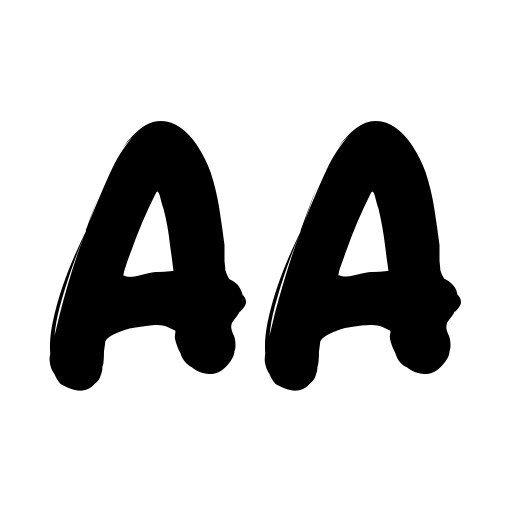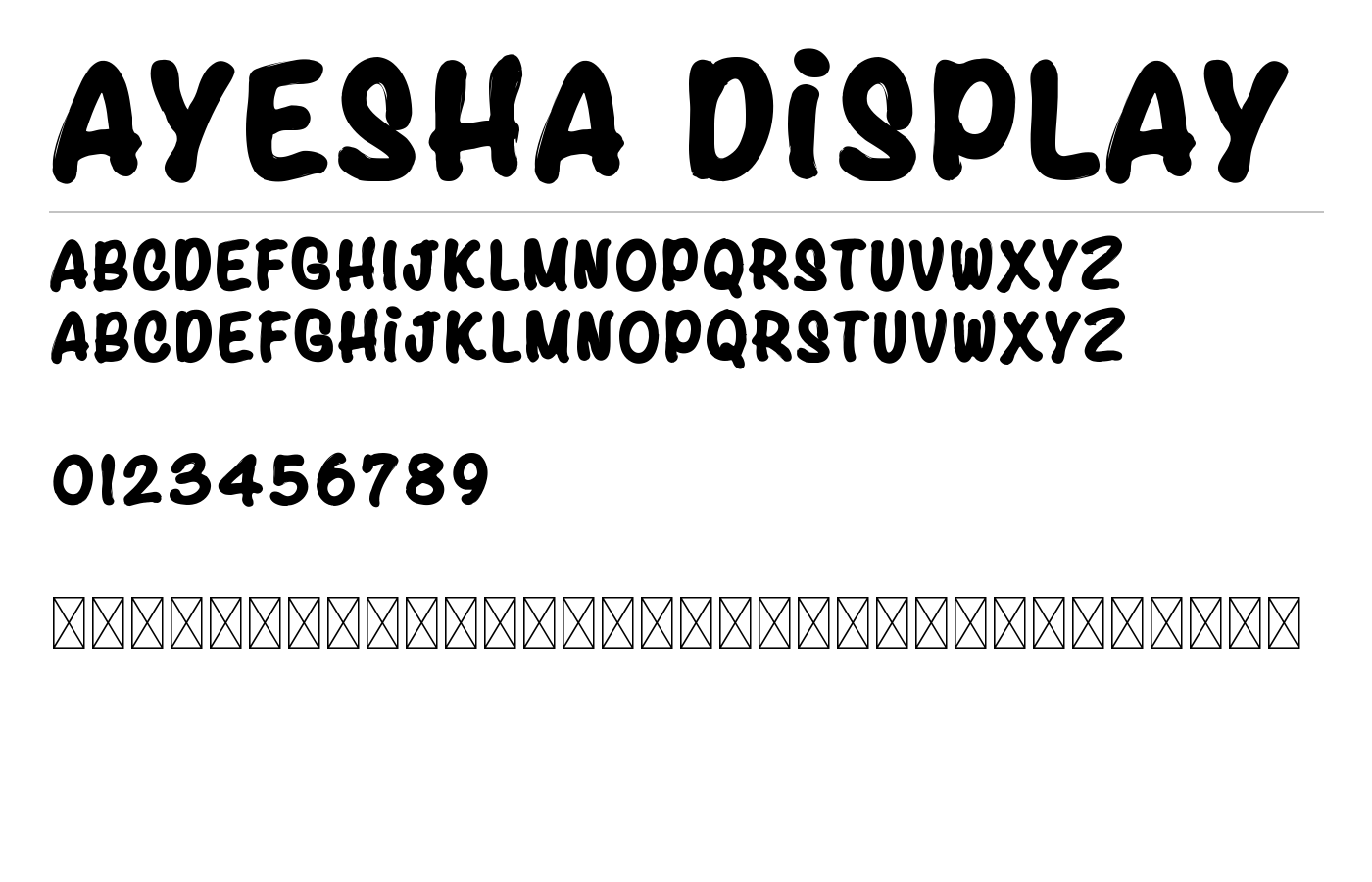
Ayesha Display is a bold, playful sans serif font with a hand-drawn feel that adds a lively and casual touch to any design. Its rounded, slightly irregular letterforms create an approachable and friendly personality, making it ideal for fun headlines, children’s books, or creative branding projects. This font works best in informal or expressive contexts where a warm, energetic vibe is desired.
Ayesha Display Font
About Ayesha Display Font